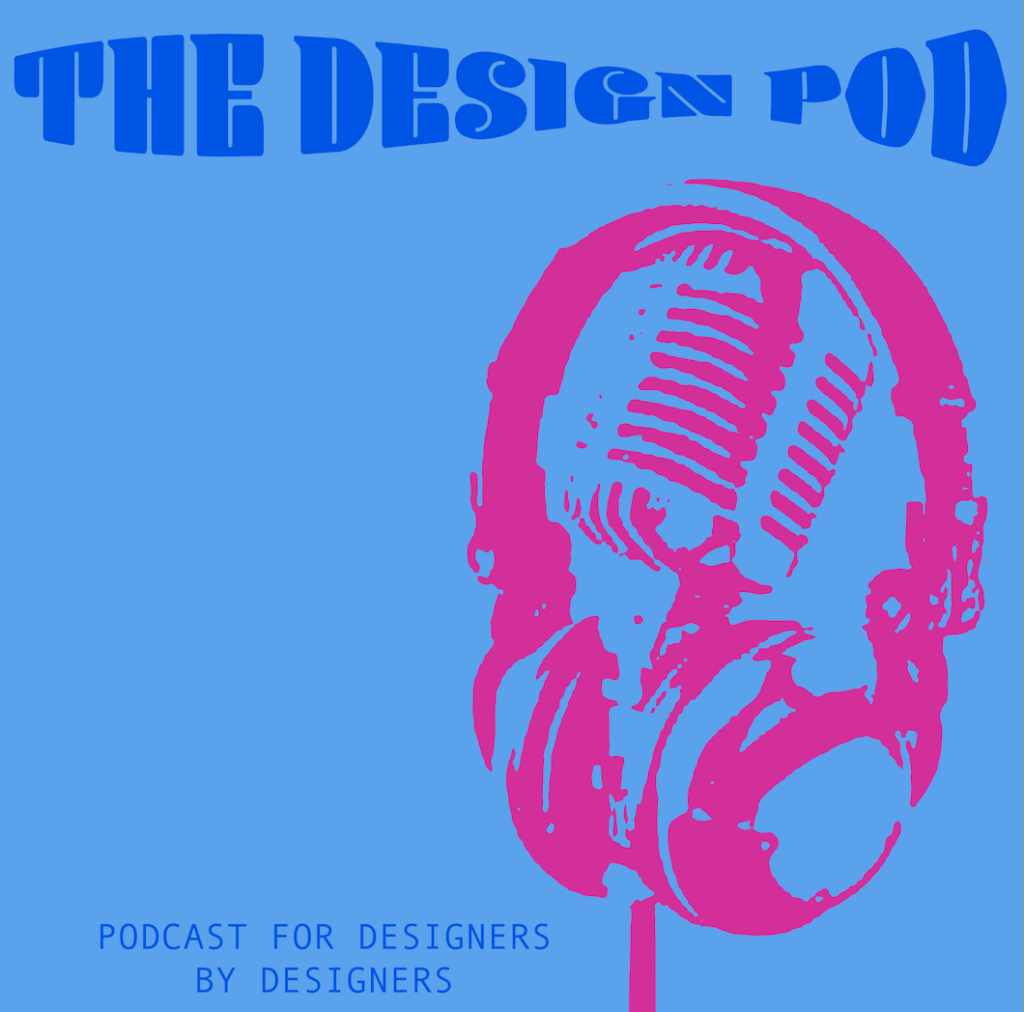
The Design Pod
1. Design Ideas and Design Process:
1st Design:
For my 1st design, I wanted to incorporate different styles of letterforms to build up a word, much like a ransom note. I experimented with the different letterforms by making them up equal in size as well as creating huge variations between them. I later came to the conclusion that having different variations between them was more in keeping to the style of a ransom note. To further develop my skills, I wanted to create a paper-like texture as the background in order to keep in theme with the ransom note. This has consequently enabled my software skills to develop to include the use filters from the filter gallery. Here I discovered how to use the texturiser to create a paper-like effect.
Experimenting with different letter sizing and which I found most effective
Experimenting the scaling and relief options on the texturiser, creating minimal and intense textural backgrounds
2nd Design:
For my 2nd design idea, I took inspiration from the tutorial Rachel offered on Blackboard, experimenting with the hue and saturation of an image. I started by generating a combination of different images, which I then played with under the hue and saturation tool bar. I chose a purple/pink/green colour combination as I thought they were more eye-catching and powerful. I decided not to write anything onto the cover as I wanted to take it into the other design software’s to experiment with an image of my own.
Below is an illustration I made for my collage:
Examples below of the different stages and experiments using the hue and saturation tool:
3rd Design:
For my final design I followed an online tutorial on creating pop art. After experimenting with a range of different colours I decided to go with blue and pink as this is a very well-known colour combination. To develop my skills further, I followed a tutorial on how to warp text as well as make a customise warp. For my design, I needed to customise it in order to make it more legible.
Examples below of different colour combinations i experimented with:
Examples below of different warped text features I experimented with, along with looking at different placements for the text:
Below shows a before and after I my customised warp to make it more legible:
I got the majority of my software skills from watching YouTube videos. Many of the ideas or tools I looked at were inspired by quick viral videos I had seen through social media platforms such as TikTok. For my first design I followed a YouTube tutorial on how to create a paper texture effect. This tutorial helped to give me better understanding of the different effect available of the software, and how using a different scaler can create a drastic change whilst still using the same effect.   On my second design, I experimented with the hue and saturation tool after following the tutorial available on blackboard. As well as finding my own online tutorials, I wanted to follow one suggested by Rachel from Blackboard. The tutorial offered by Rachel helped to broaden my understanding towards the smaller, unnamed icons available not found in the menu bar. Finally, the tools I used on my last design included learning more about different effects available for images, but also different text effects. I enjoyed creating this design the most as I felt I learnt a lot more about Photoshop from it. For this I first followed a tutorial on how to convert an image into a Pop art effect with a combination of different colours. Later I learnt how to distort text by warping it into different shapes and sizes. This is a software skill I would like to develop further, especially as the warp is customisable. Although I customised my text to make it more legible, I think this tool is a really creative way to create your own distorted font.
After deciding that I wanted to do a Pop Art design for one of my podcasts covers, I found a website that included a range of different styles of Pop Art. This was really helpful in terms of being able to see the different styles side-by-side and really helped to influence my design choice. Although the website offered a range of different styles, I decided to go for the vectorised version of Pop Art, often used by Andy Warhol. Further to this design I wanted to come up with my own podcast name instead of constantly using ‘Typography and Graphic Communication’. This led me to start reading different articles about how to create the perfect podcast name as well as create a mind map. After reading an article I realised it need to be something short and sweet but also a play on words. As the podcast was for designers, I knew it need to include either the word ‘design’ or something similar. So why ‘The Design Pod’ you may ask? Well, a pod refers to an enclosed space much like a capsule. Therefore, would have no background noise and very much be in the moment, helping to give off the look as an easy listen but also educational which is something a podcast should be.